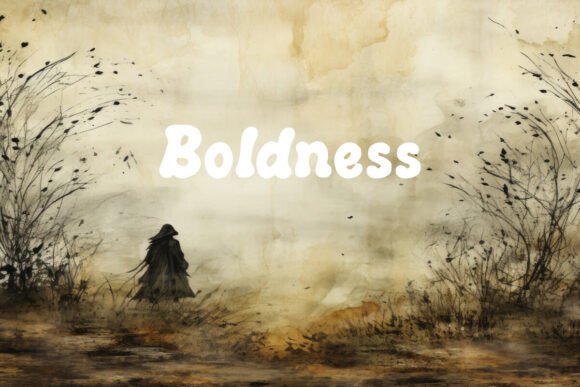
Introduction to Boldness Font
Unveil a world of possibilities with the Boldness Font – a versatile typeface perfect for crafting eye-catching shirts, playful stickers, distinctive branding and dynamic magazine layouts.
Transform simple SVG files into pieces of art, create heartfelt greeting cards, and add a creative twist to your Cricut projects This modern and adaptable font elevates your posters, social media posts and beyond, infusing each creation with an unmistakable touch of boldness.
Key Features of Boldness Font
Why Choose Boldness Font?
Boldness Font offers exceptional quality and versatility, making it a valuable addition to your design toolkit. Whether you’re creating for personal projects or commercial use, Boldness Font delivers professional results.